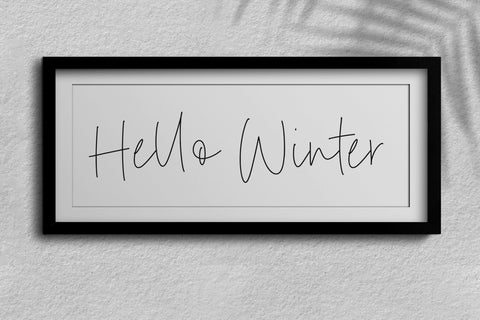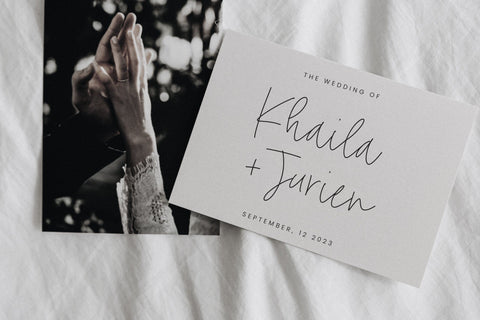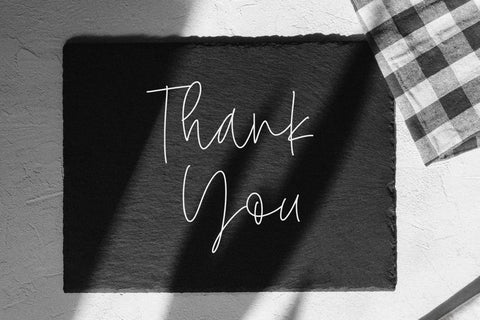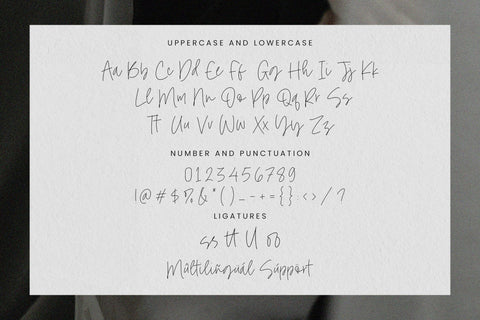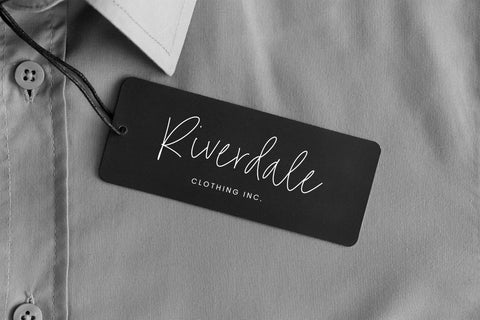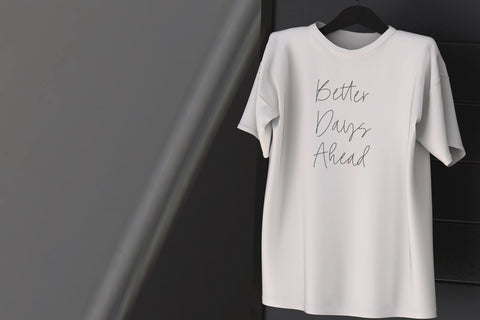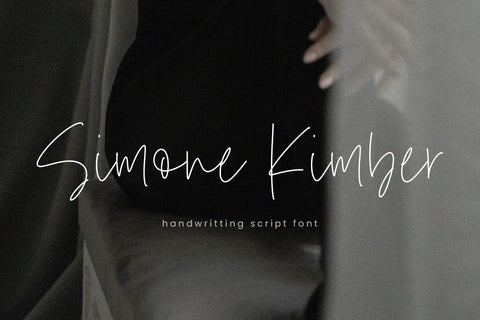
Simone Kimber - Handwritten font
Proudly Present, Simone Kimber
Simone Kimber - Handwritten font , which was created with great care and specially created for you
Simone Kimber is perfect for product packaging, branding project, megazine, social media, wedding, or just used to express words above the background.